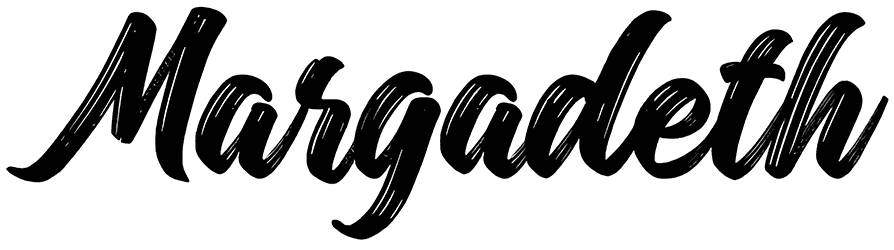
Margadeth Font
There’s nothing you can’t do with the combination of script style and a brush font, especially the way Margadeth does it. It functions perfectly even with no number in its characters and its italic letters know just how to emphasize your words creatively.
You’ll have plenty of projects that can do better with a cursive font like this. Ranging from postcards and gift shop posters to apparel and art class logos, Margadeth will be there for you the whole time.
Introducing Margadeth Bold Script
A modern and stylish handcrafted signature font that’ll make your audience swoon and enhance your projects. Every stroke and curve was created to capture the essence of modernity and style. This gorgeous and stylish font can be used for a host of different content needs and projects. Ideal for social media posts and ads, printed quotes, t-shirt designs, packaging, or even as a modern text overlay to any background image. Margadeth Bold Scriptt includes Multilingual Options to make your branding globally acceptable.
Features:
• Standard Ligatures• Stylistic Sets